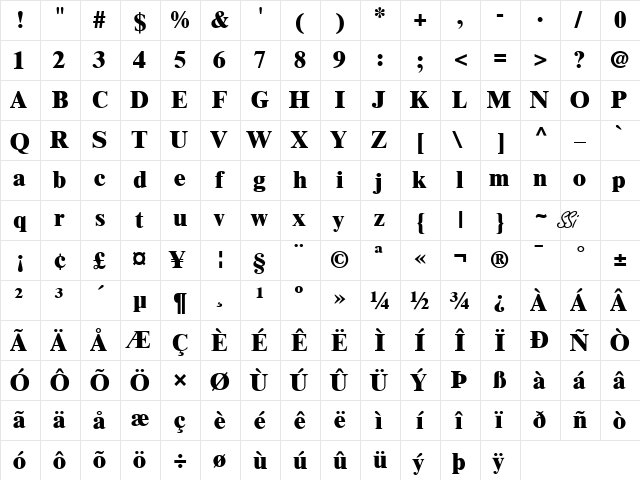
Greco Black SSi Extra Bold
Design Context for Greco Black SSi Typeface
Greco Black SSi is a composed and adaptable typeface that performs quietly and consistently across a wide range of design contexts. The heavy weight commands attention and anchors typographic hierarchies.
Pro Tip: Use Greco Black SSi in both headline and body roles to test its range before committing to a single application.